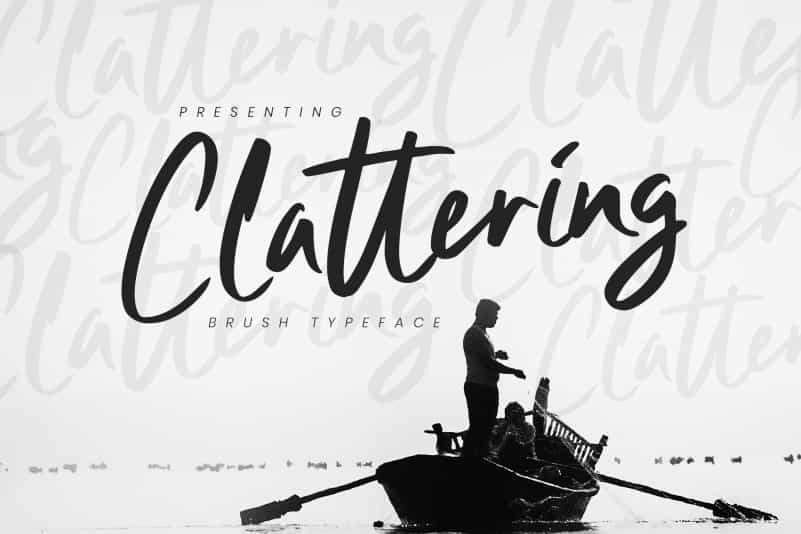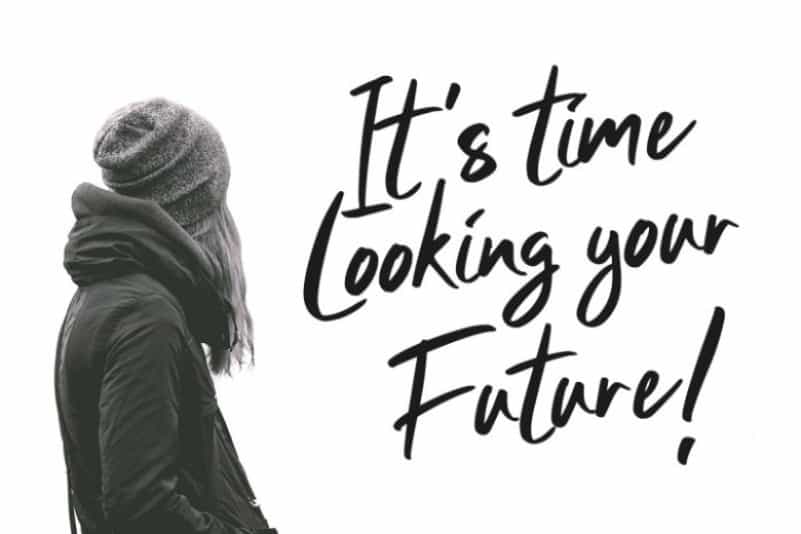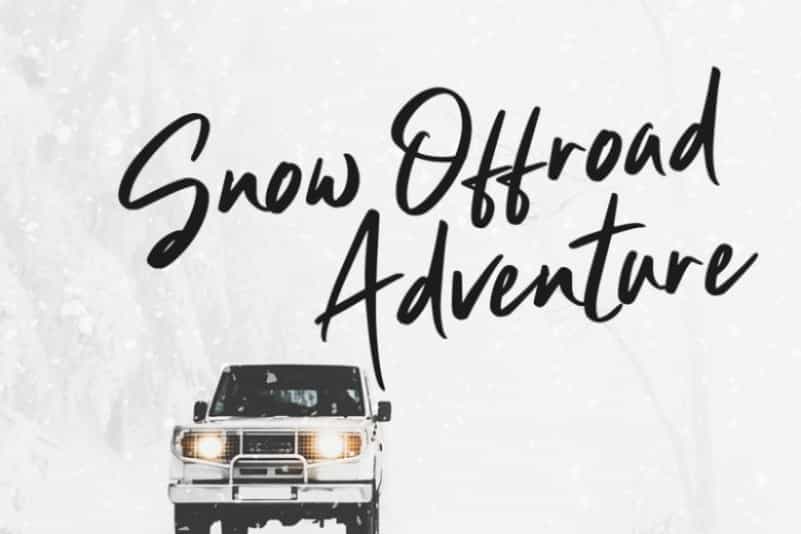
Discover Clattering Brush Font, part of the Brush Handwritten collection—a versatile and unique font perfect for adding a personal touch to your projects. Download it for free and enjoy crafting designs with style, from invitations to social media posts. This font is available exclusively for personal use, giving you the freedom to create without limits. Unlock your creativity with Clattering Brush Font today!
Clattering is a brand new handwriting brush font that features a few that are perfect food Heading. The font is already in use and has a great style! This is a unique brush font that is free-flowing and confident boldness lines that are thin and thick. The Clattering Brush font is developed by Creatype Studio and made available to users. Creatype Studio.